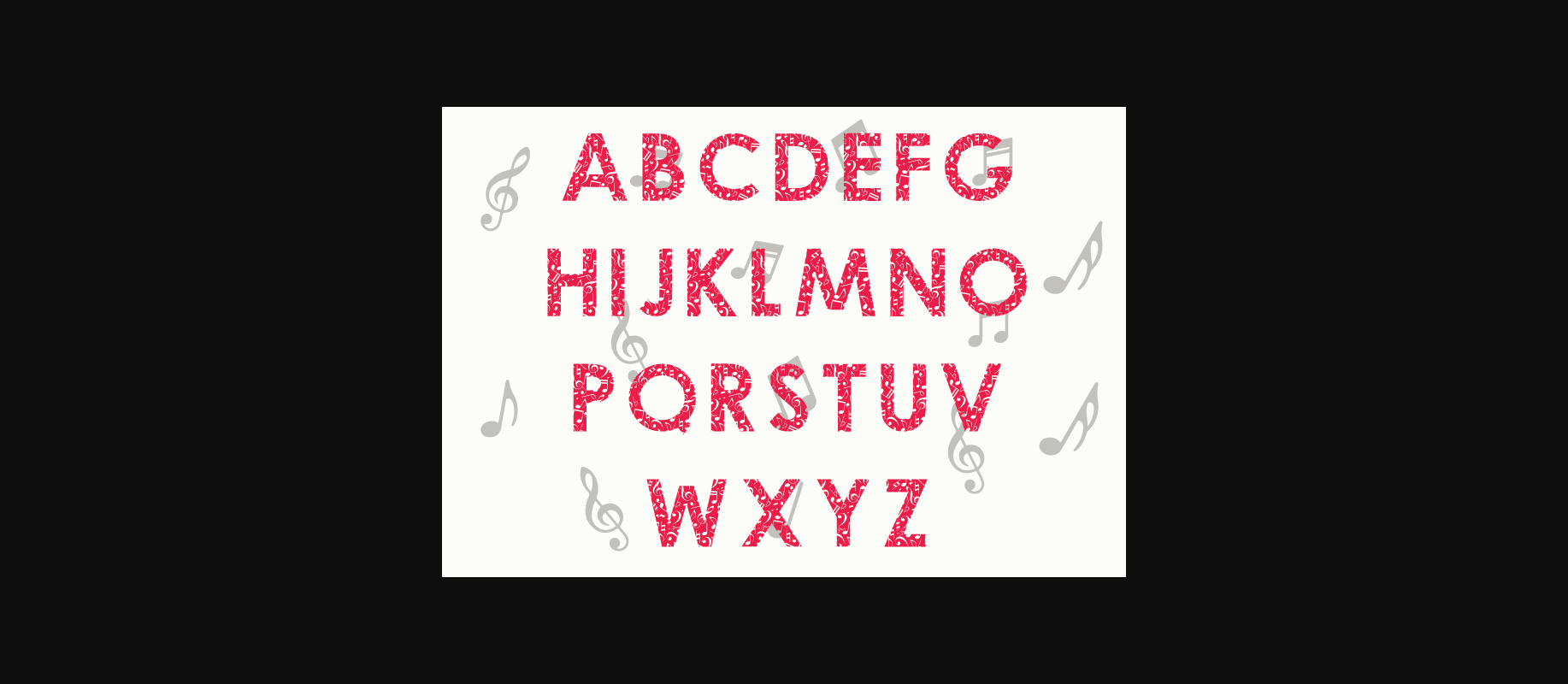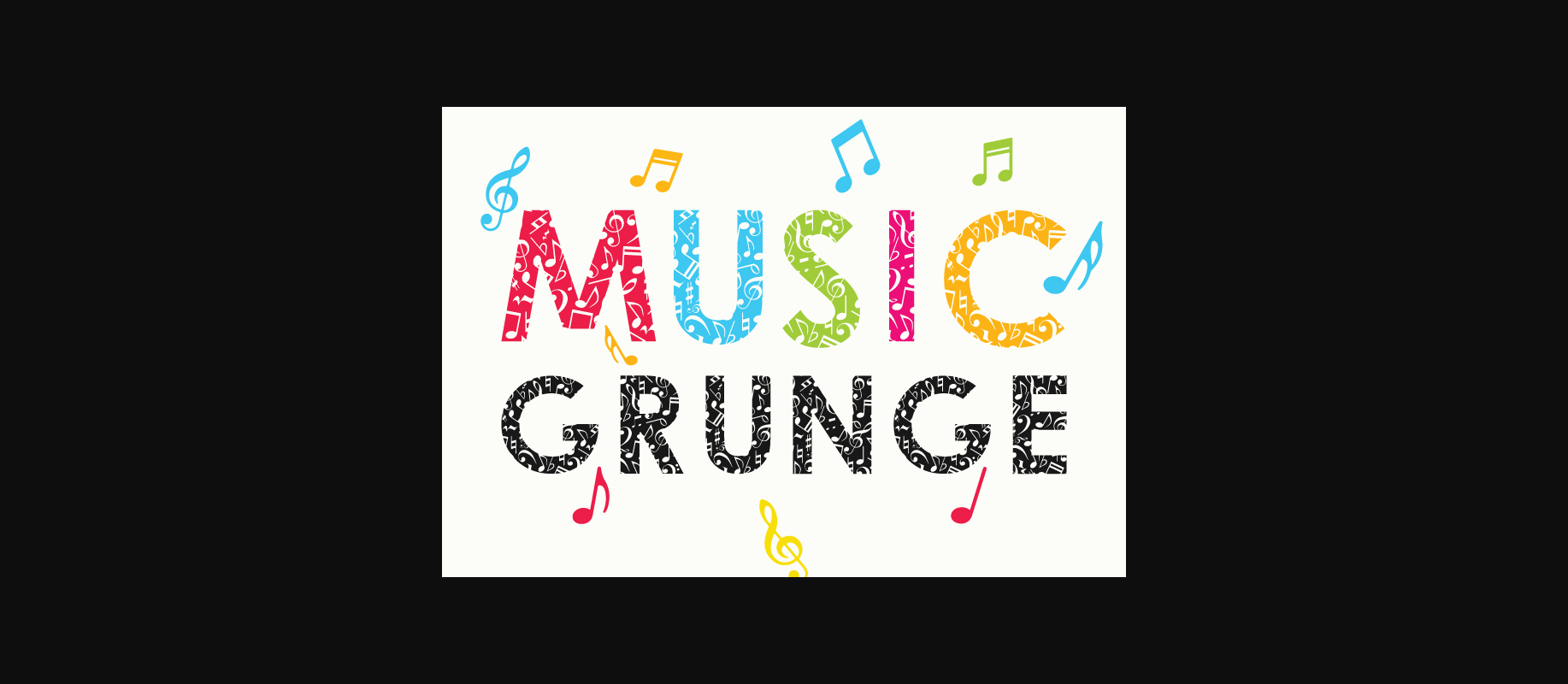
Music Grunge Font
About Music Grunge Font
Presenting Music Grunge, an eloquently crafted decorative font. Forged with flawless precision, it is imbued with a minimalist elegance that feels as light and flowing as a melody. Its notes and symbols caper in sync, generating a beautiful rhythm akin to a visual symphony. The unadorned design pays homage to the beauty of simplicity, rendering it ideal for a myriad of creative expressions. You can employ this typeface to construct a minimalistic ambiance in areas like tattoo designs, logos, branding, and web design, thereby setting a unique aesthetic tune. This is Music Grunge, where an enchanting symphony meets a refined simplicity.